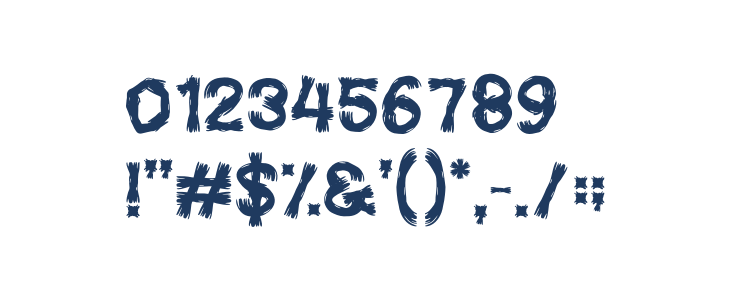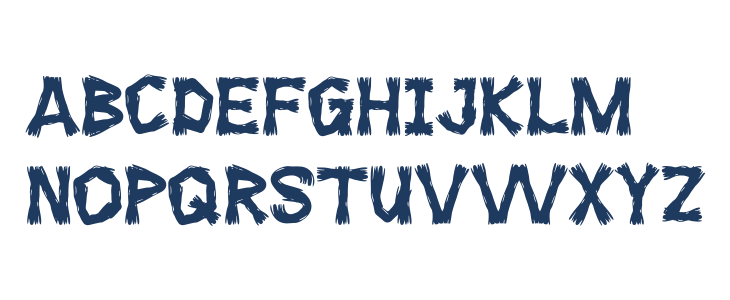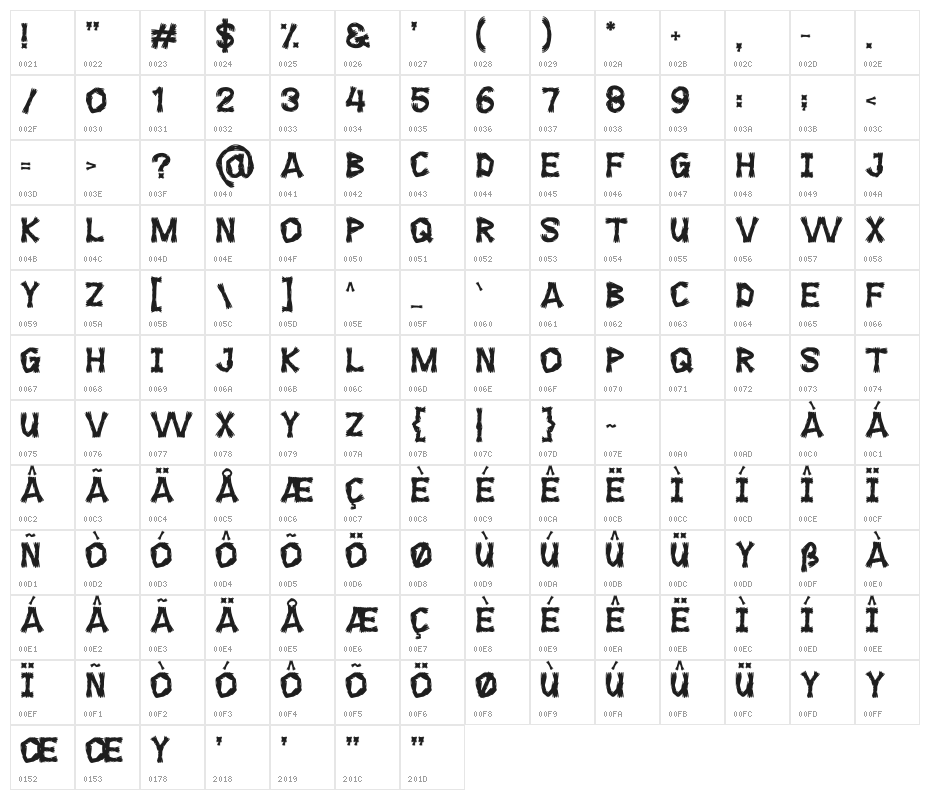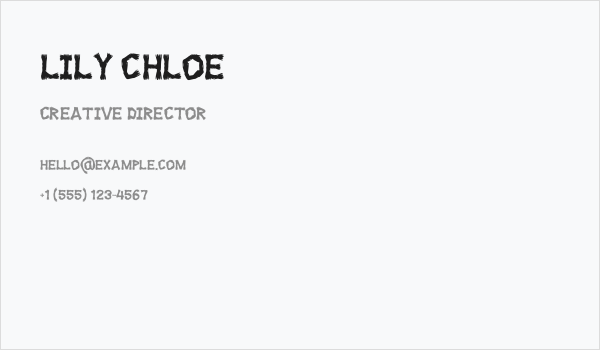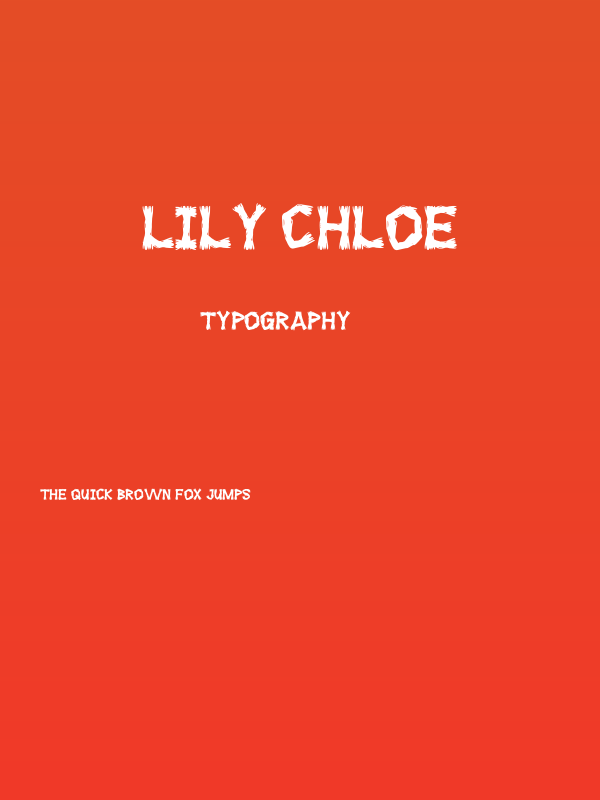
LILY CHLOE Font
LILY CHLOE Description
A bold, decorative display font with rough, jagged edges resembling brush strokes or torn paper, giving it a wild and energetic appearance. All characters are uppercase with consistent height and dramatic, irregular outlines.
| Overall Style | Decorative, Wild, Energetic |
| Proposed Projects | Posters, Halloween themes, horror movie titles, event flyers, edgy branding, album covers. |